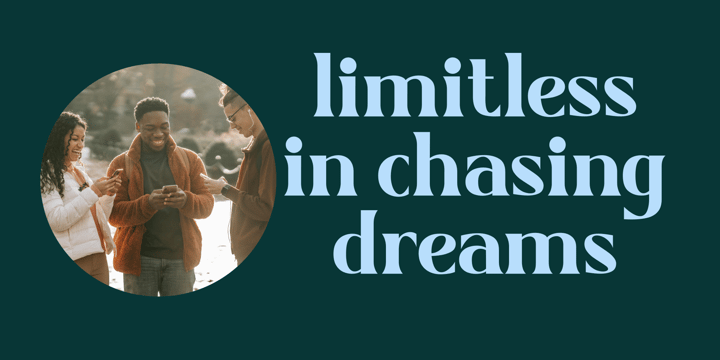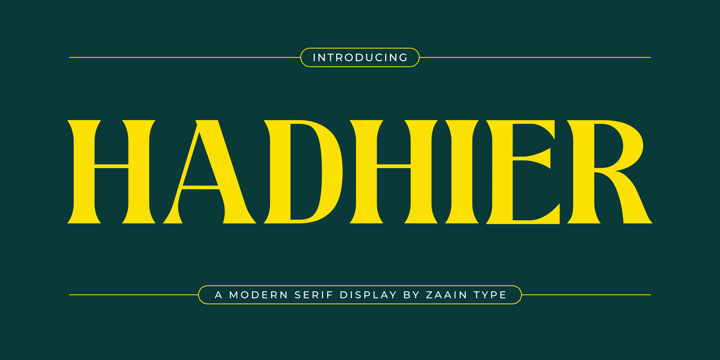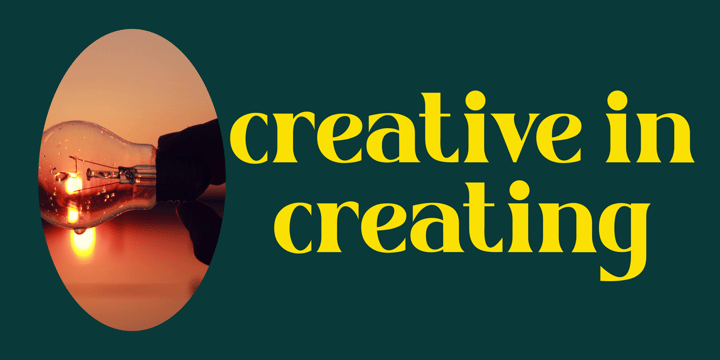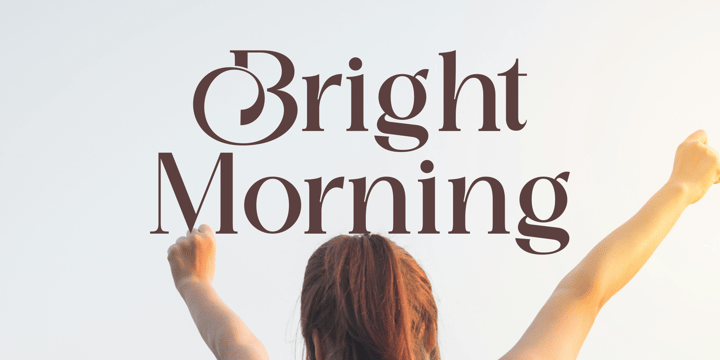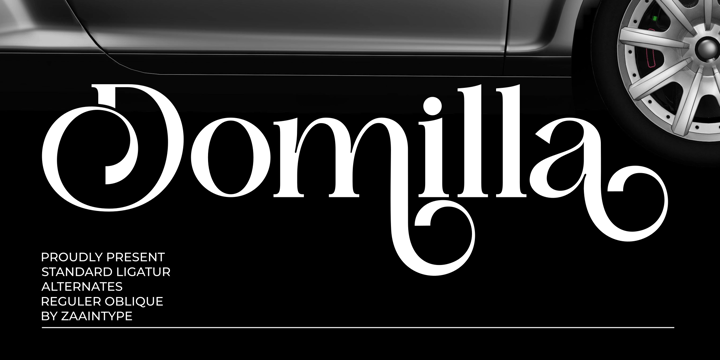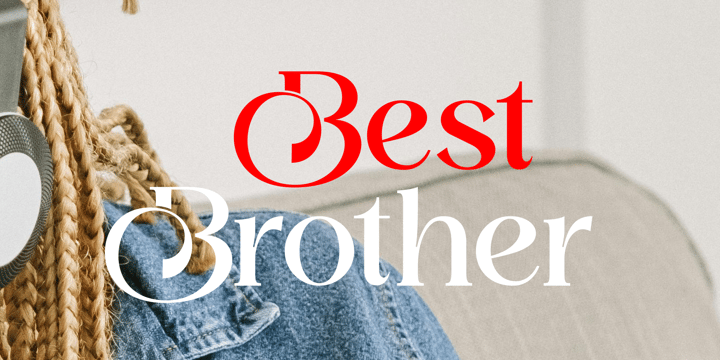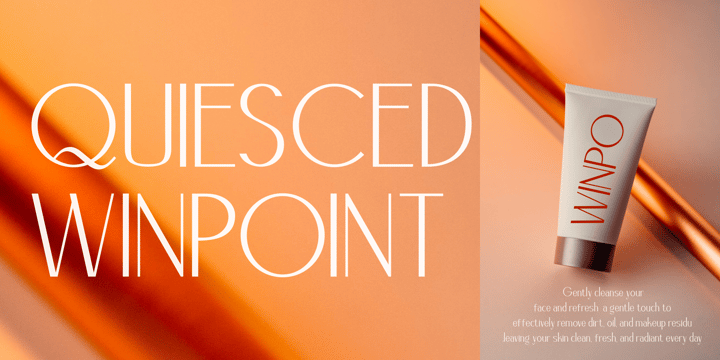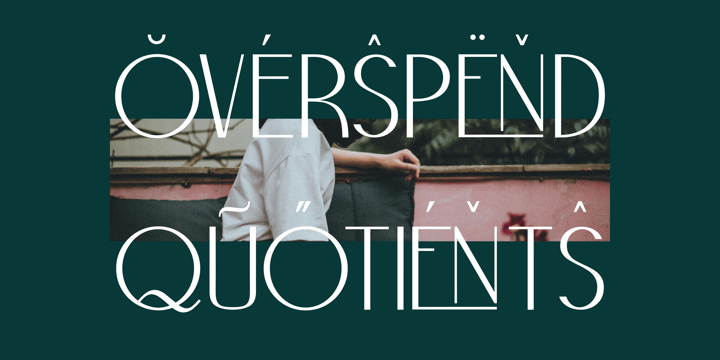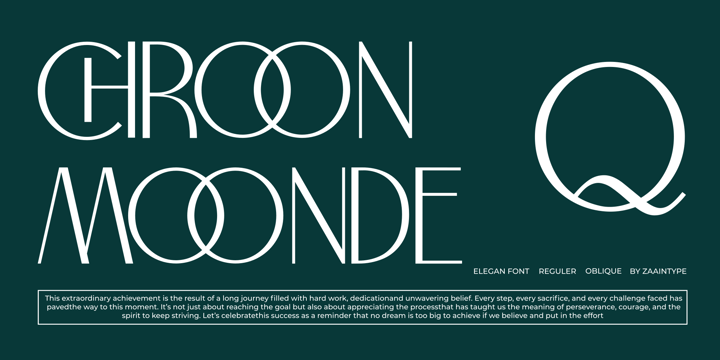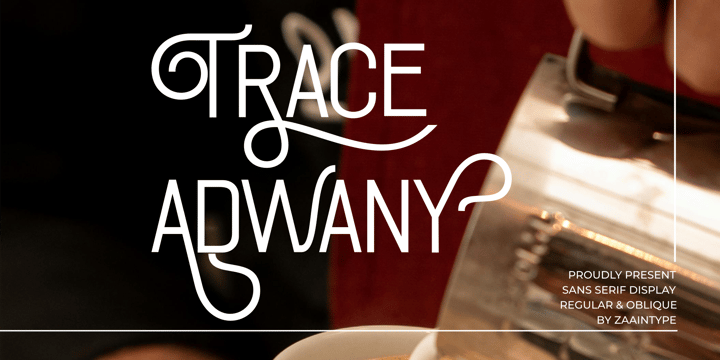
Ju Naen
Ju Naen is the founder and principal designer at Zaain Type, a type foundry based in Purbalingga, Central Java. With a passion for typography and a keen eye for detail, Ju Naen has crafted a collection of fonts that blend traditional craftsmanship with modern design principles. His work reflects a deep appreciation for Indonesian culture, incorporating local artistic elements into contemporary typefaces. Under his leadership, Zaain Type has become known for its high-quality, versatile fonts that enhance readability and visual appeal, making significant contributions to the world of typography.